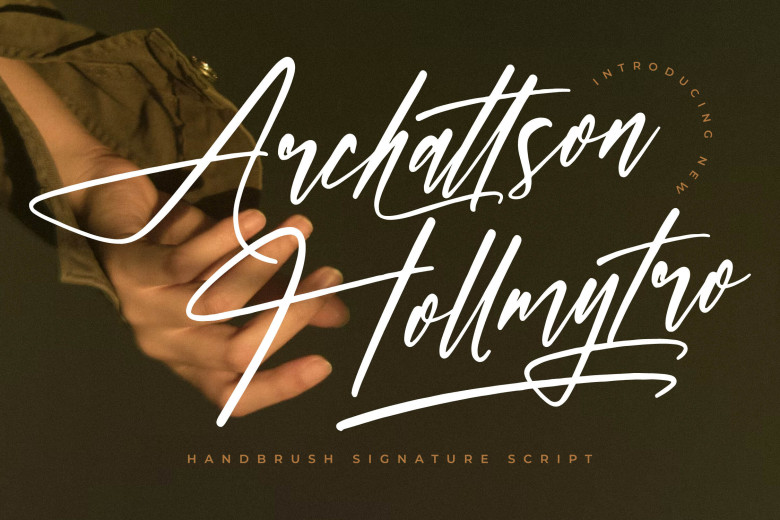
Archattson Hollmytro Font
Archattson Hollmytro Handbrush Signature Script can be used in numerous projects such as logos, branding design, homeware packaging products, mugs quotes bags posters, T-shirts, book covers, names cards, invite cards, labels, greeting cards, watermarks, photography, events special events and any other work requiring the perfect script taste.
Archattson Hollmytro Handwritten Font